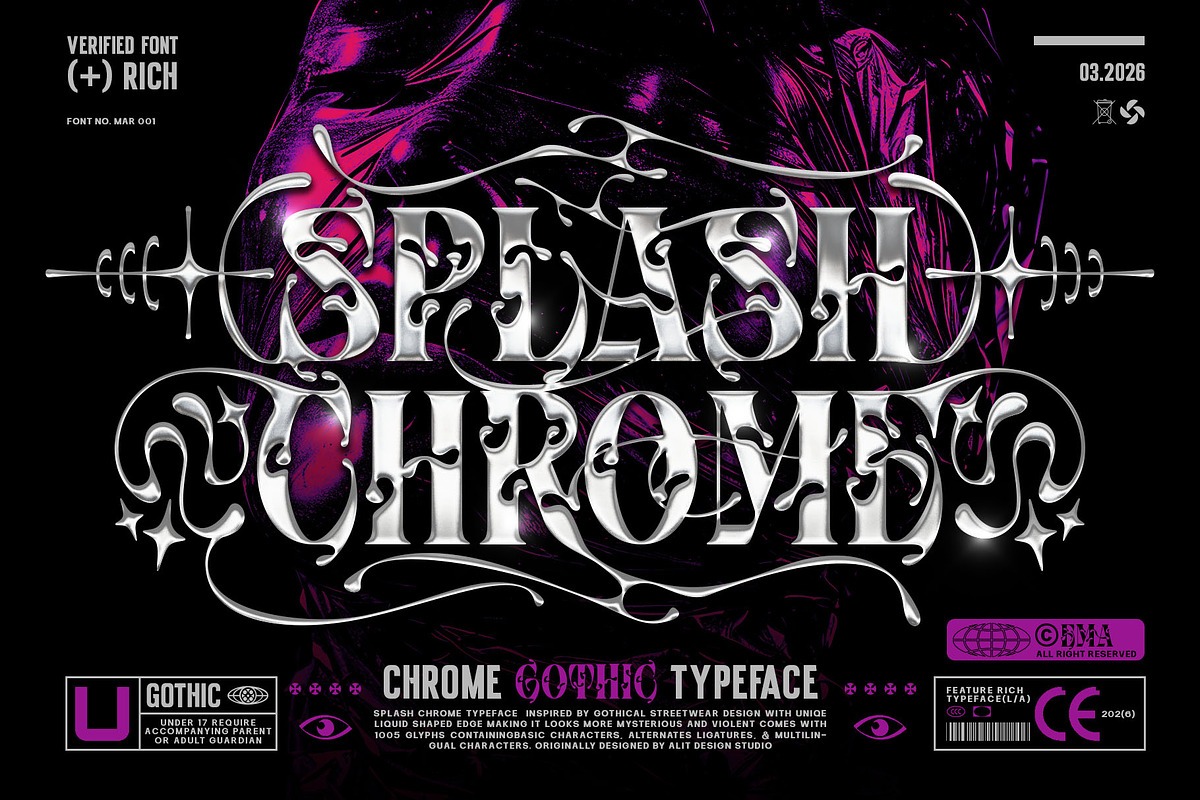
Splash Chrome – Gothic Font
Splash Chrome – Gothic Font is a versatile font designed to adapt beautifully across different design styles, offering dependable readability and balance. Inject a dose of high-octane energy into your designs with Splash Chrome. This font is a masterclass in modern aesthetics, blending the fluidity of liquid mercury with the sharp, aggressive precision of cyberpunk futurism.
Splash Chrome isn’t just a typeface; it’s a visual statement. Designed with dynamic, flowing strokes and razor-sharp terminals, it captures the essence of speed, tech, and “chrome-culture.” Whether you are aiming for a Y2K revival, a high-tech streetwear vibe, or a futuristic automotive look, this font delivers a polished, metallic edge that demands attention.